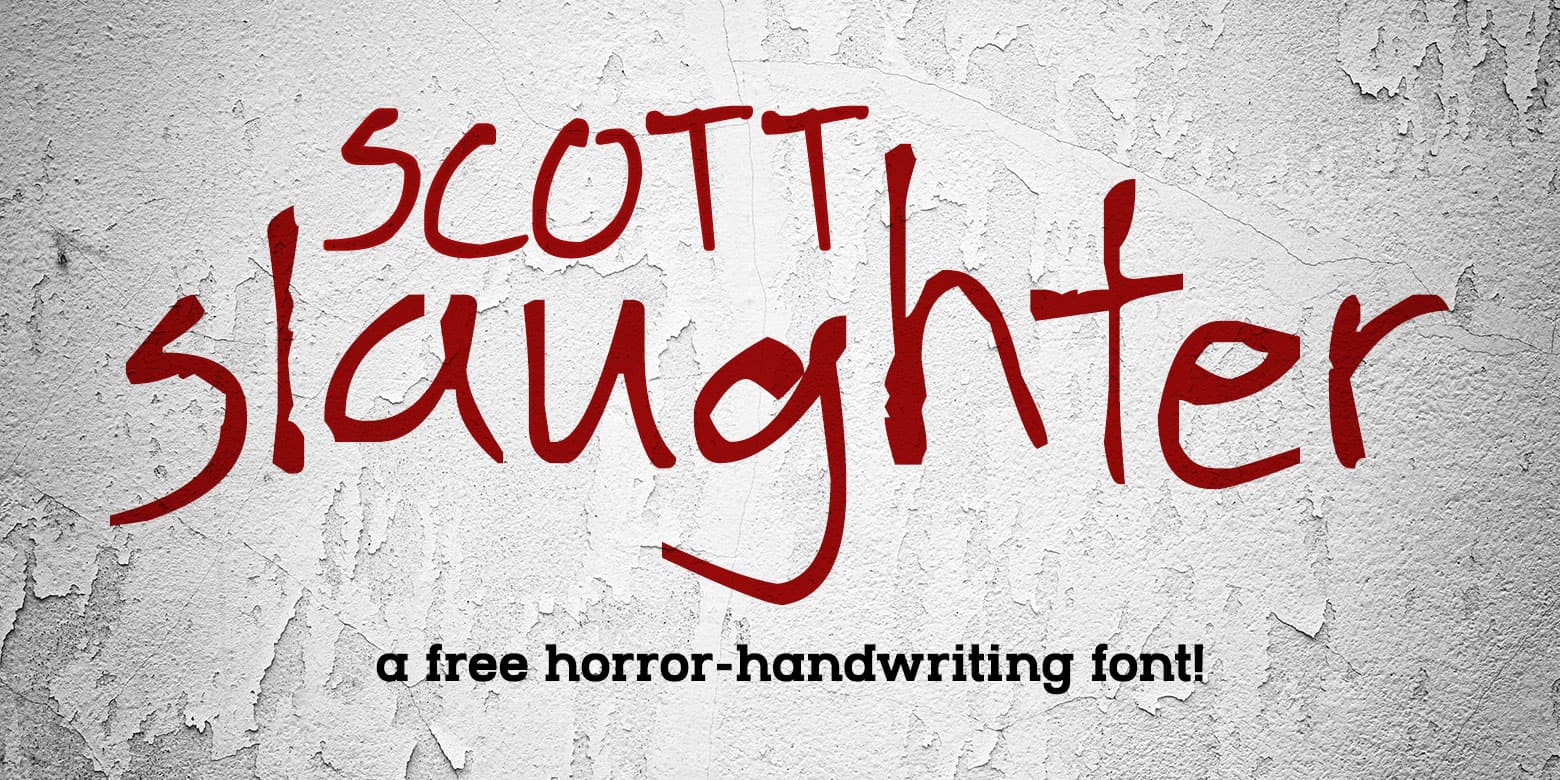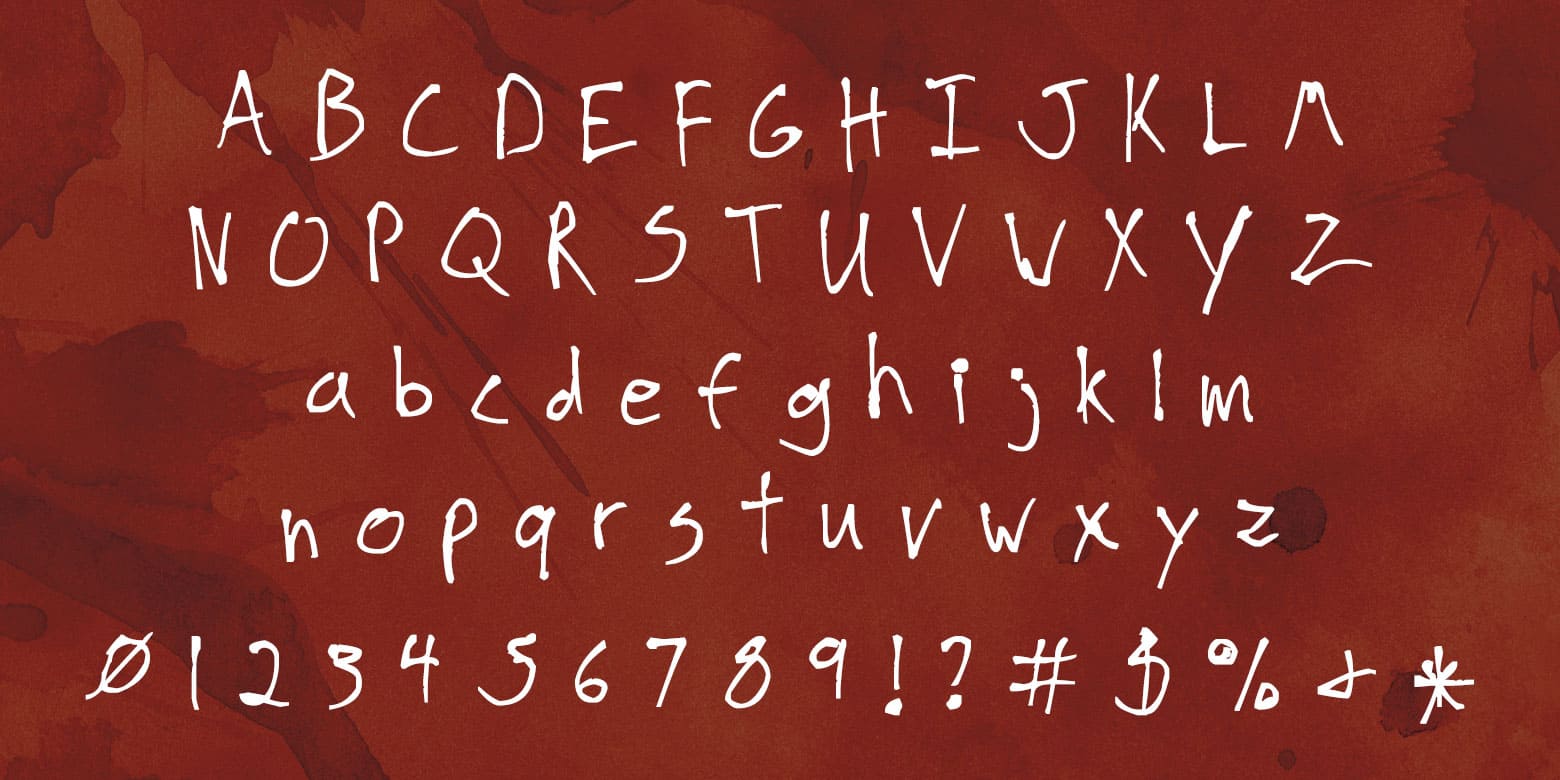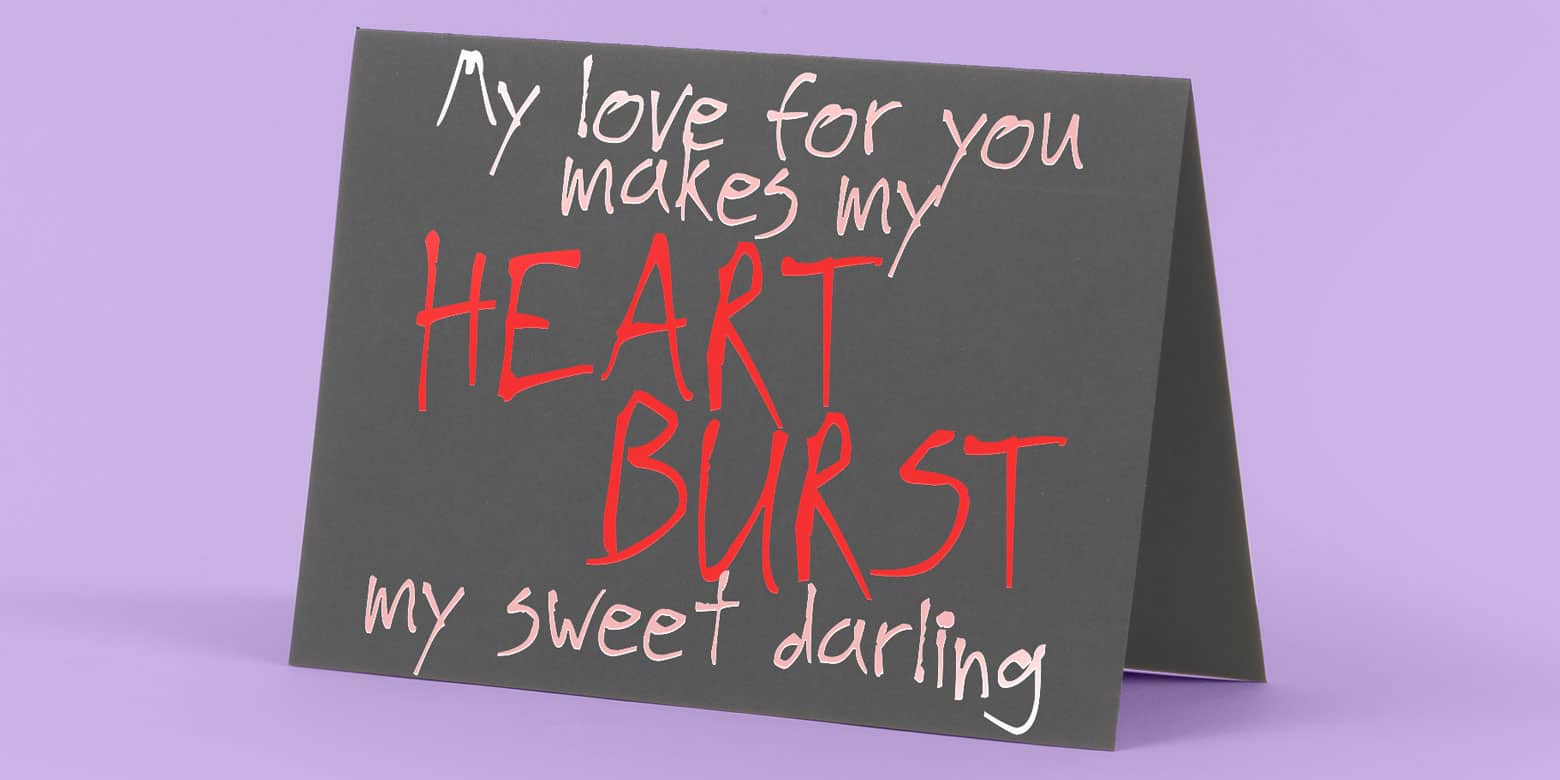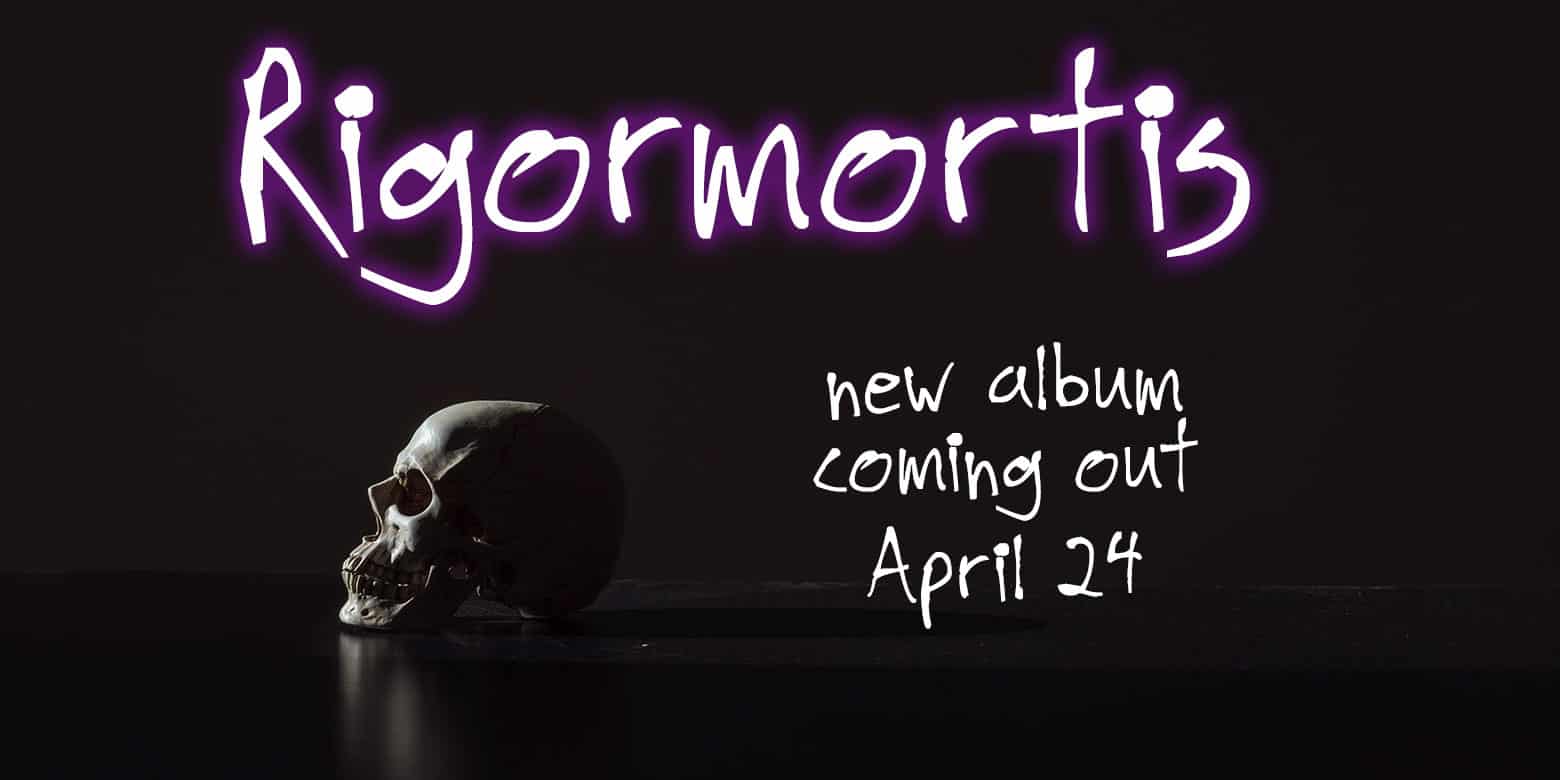
Scott Slaughter
This is my husband Scott’s handwriting. He hates it, but I think it’s awesome! (Though I have told him, “You have the handwriting of a serial killer.”)
I’ve gone light on the promo images because this is a freebie, but the font itself certainly isn’t light! It’s packed with over 300 accented characters for language support, as well as the usual: A-Z, a-z, 0-9, and a bunch of punctuation.